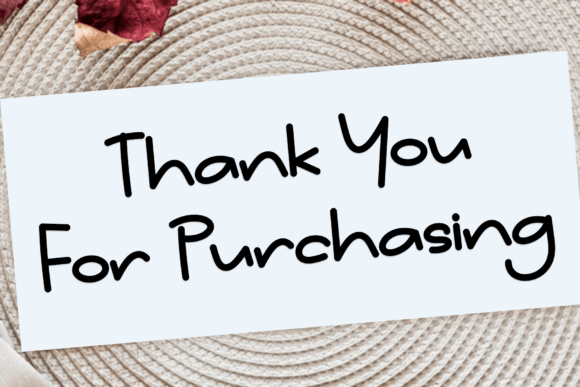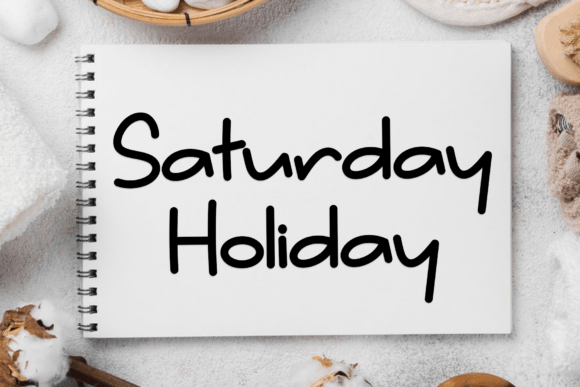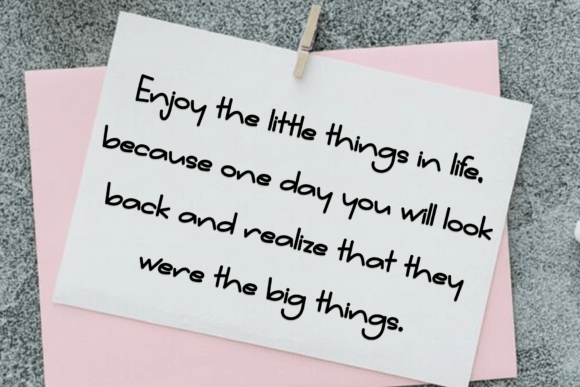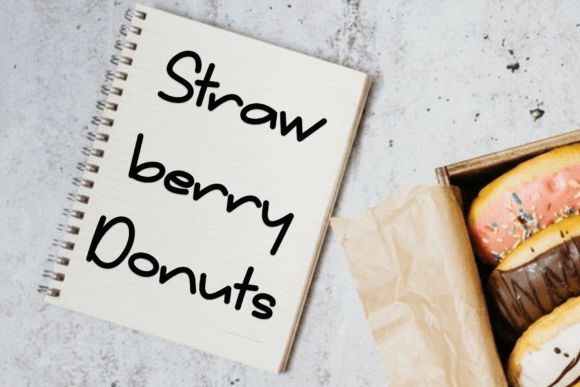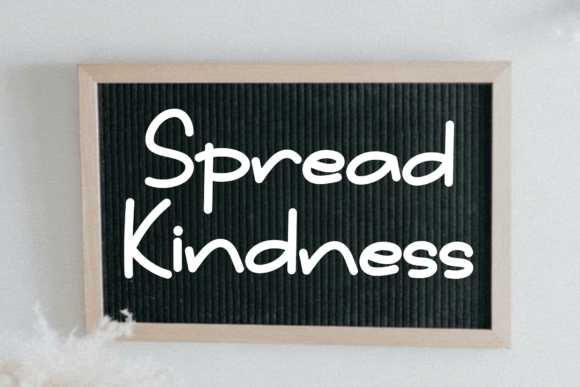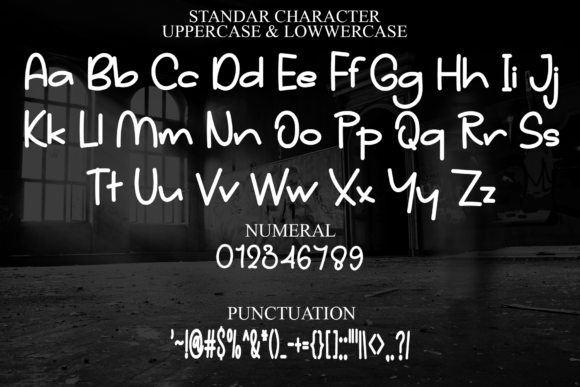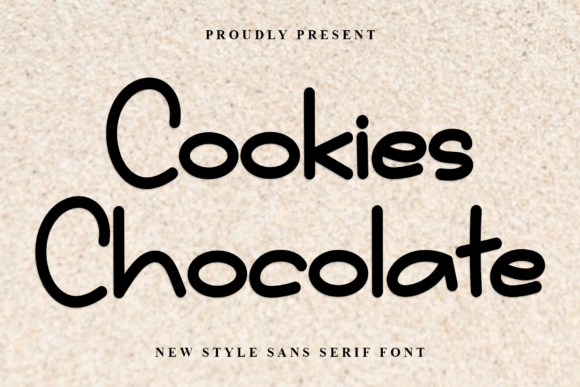
Cookies Chocolate Font: The Perfect Blend of Fun and Creativity
Are you tired of using the same old fonts for your personal projects, invitations, and social media graphics? Look no further than the Cookies Chocolate font! This casual and creative font is designed to exude warmth and friendliness, making it perfect for anyone looking to add a touch of personality to their designs.
The Characteristics of Cookies Chocolate Font
Cookies Chocolate font is characterized by its round, playful strokes that create a relaxed and approachable feel. The font’s charming, hand-drawn aesthetic adds a fun and unique touch to any design, making it perfect for crafters, designers, and DIY enthusiasts. The font’s casual vibe is reminiscent of handwritten notes and childhood memories, evoking a sense of nostalgia and warmth.
Perfect for Personal Projects and Designs
Cookies Chocolate font is ideal for a wide range of personal projects, including:
- Invitations: Whether it’s a birthday party, wedding, or baby shower, Cookies Chocolate font is perfect for creating custom invitations that reflect your personality and style.
- Social Media Graphics: Add a touch of fun and whimsy to your social media graphics, including Facebook posts, Instagram stories, and Twitter headers.
- DIY Crafts: Use Cookies Chocolate font to add a personal touch to your DIY crafts, such as scrapbooking, card-making, and journaling.
Why Choose Cookies Chocolate Font?
So why choose Cookies Chocolate font over other fonts? Here are just a few reasons:
- Unique and Creative: Cookies Chocolate font offers a unique and creative way to express yourself through your designs.
- Easy to Read: The font’s round, playful strokes make it easy to read, even at small sizes.
- Versatile: Cookies Chocolate font can be used for a wide range of projects, from personal to commercial.
- Fun and Whimsical: The font’s charming, hand-drawn aesthetic adds a fun and whimsical touch to any design.
Tips for Using Cookies Chocolate Font
Here are a few tips for getting the most out of Cookies Chocolate font:
- Pair with Other Fonts: Experiment with pairing Cookies Chocolate font with other fonts to create a unique and interesting contrast.
- Use in Combination with Images: Use Cookies Chocolate font in combination with images to add a touch of personality to your designs.
In conclusion, Cookies Chocolate font is a fun and creative font that’s perfect for designers, crafters, and DIY enthusiasts. Its unique and charming aesthetic adds a touch of personality to any design, making it ideal for personal projects, invitations, and social media graphics. With its standard PUA Encoded glyphs and compatibility with a wide range of application engines, Cookies Chocolate font is a versatile and easy-to-use font that’s sure to become a favorite.